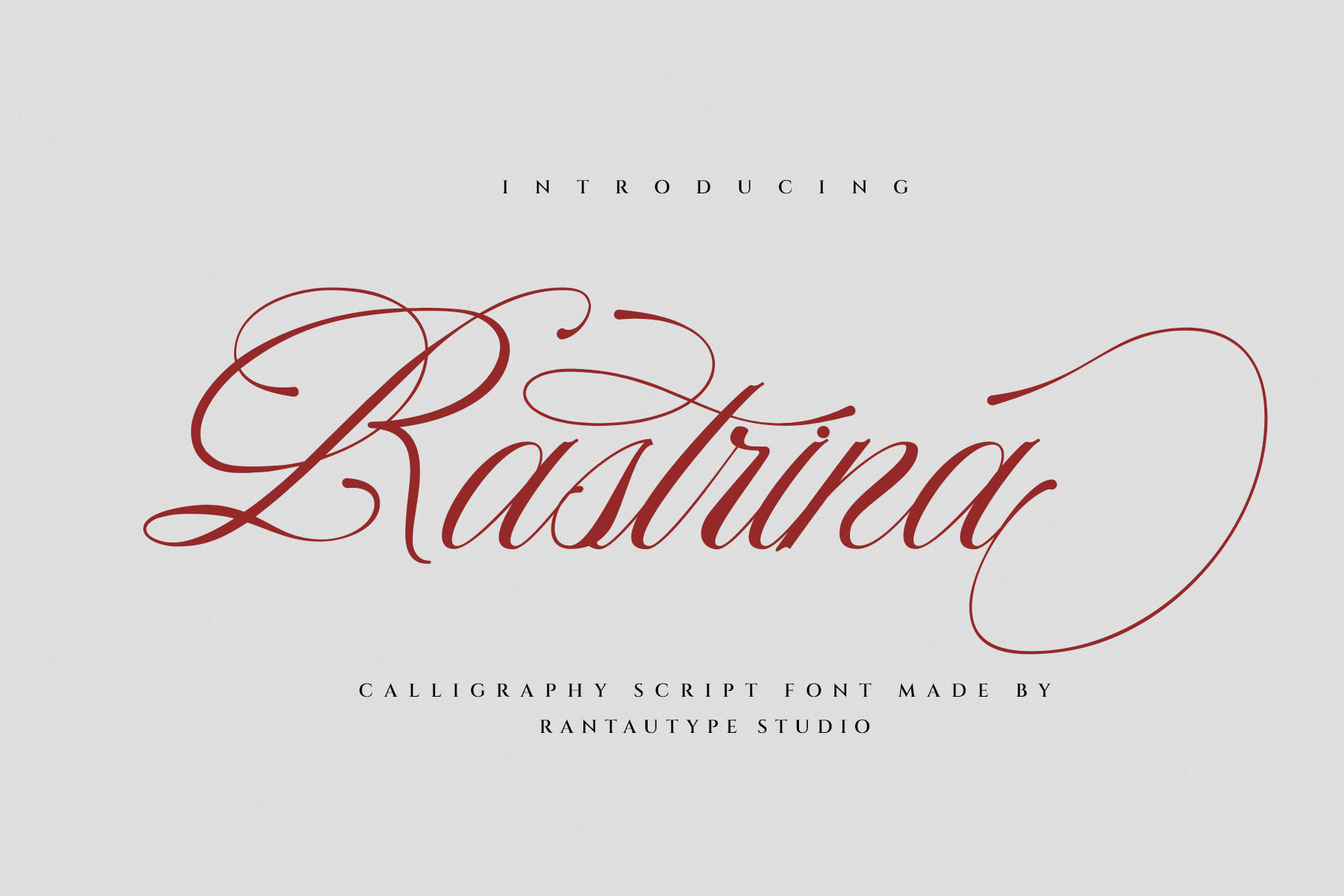
Rastrina Calligraphy Script Font
Rastrina is calligraphy script font embrace grace and feminity. Rastrina is a perfectly choice for any creative endeavor, creating, modern, lifestyle design such as logotype, title, cover, branding, invitations, wedding designs, display and magazine, social media posts, advertisements, printed quotes, product packaging, corporate brand, product designs, labels, photography, watermarks, special events and any other project with modern touch.
- Alternate and ligature
Fonts include Multilingual Character for: Afrikaans, Albanian, Asu, Basque, Bemba, Bena, Breton, Chiga, Cornish, Dutch, English, Estonian, Filipino, Finnish, Friulian, Galician, Gusii, Indonesian, Irish, Italian, Kabuverdianu, Kalenjin, Kinyarwanda, Luo, Luxembourgish, Luyia, Machame, North, Oromo, Portuguese, Quechua, Romansh, Rombo, Rundi, Rwa, Samburu, Sango, Sangu, Scottish, Gaelic, Sena, Shambala, Shona, Soga, Somali, Spanish, Swahili, Swedish, Swiss, German.